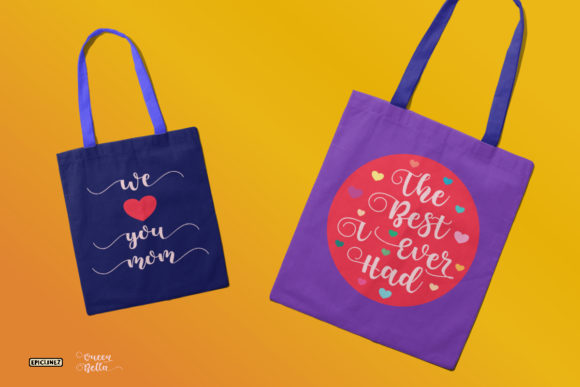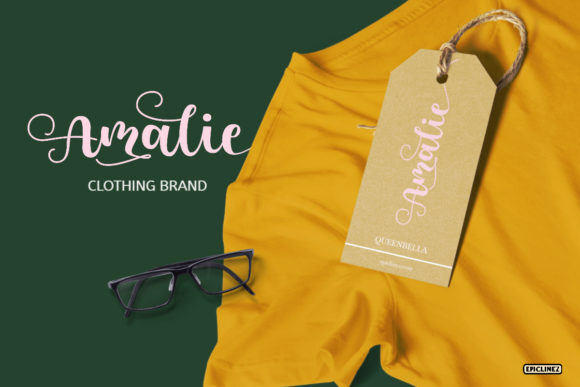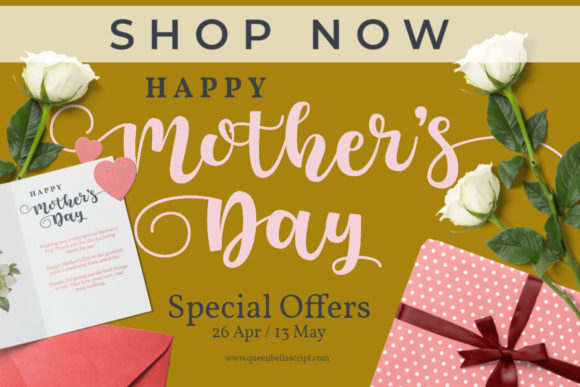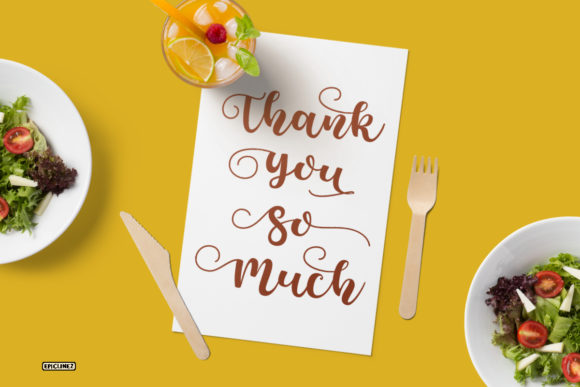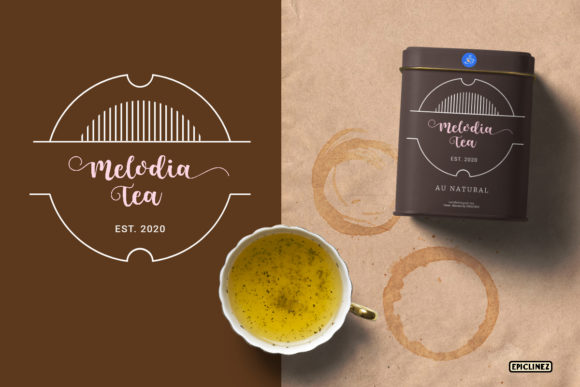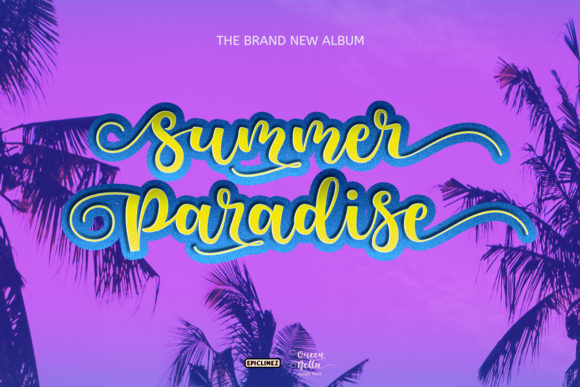
Introduction to Queen Bella Font
Queen Bella is a bold and bouncy handwritten script font.
Use it for any design project that requires a personalized appearance .